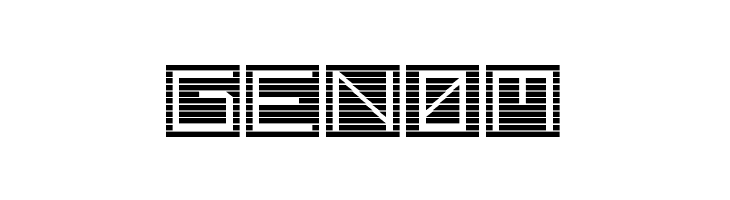
Fortman Font
- Font: Fortman
( Fonts by Manuel Viergutz - Typo Graphic Design - www.typographicdesign.de )
A modern, linear font with characters made of horizontal stripes.